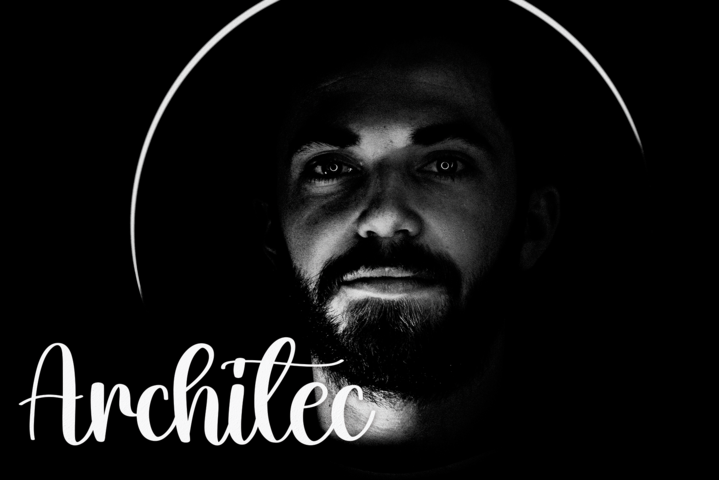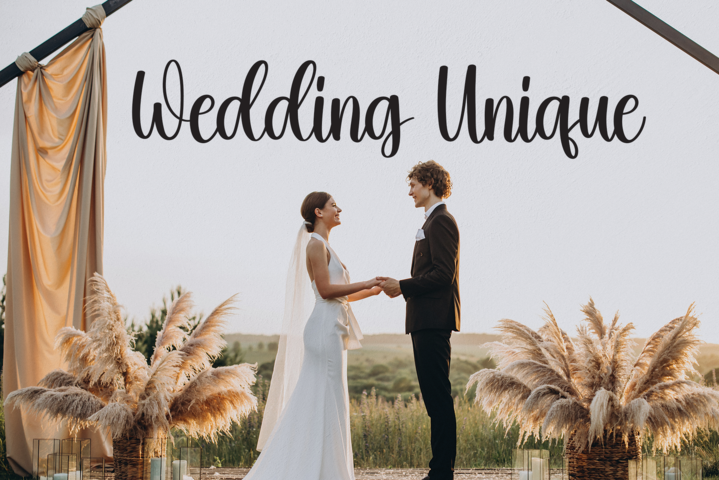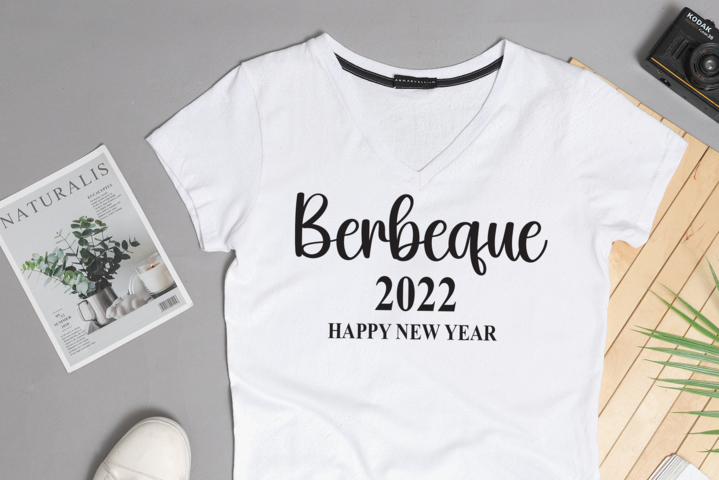
Fishing Font
Fishing Script Font
This is a delicate and elegant handwritten font. Its distinct and well balanced letters make this font a masterpiece. Fall in love with its incredibly versatile style and use it to create spectacular designs!
the latest style letters are perfect for wall displays, wedding invitations, social media post logos, advertisements, product packaging, product designs, labels, photography, watermarks, invitations, stationery, and any project that requires taste handwriting.